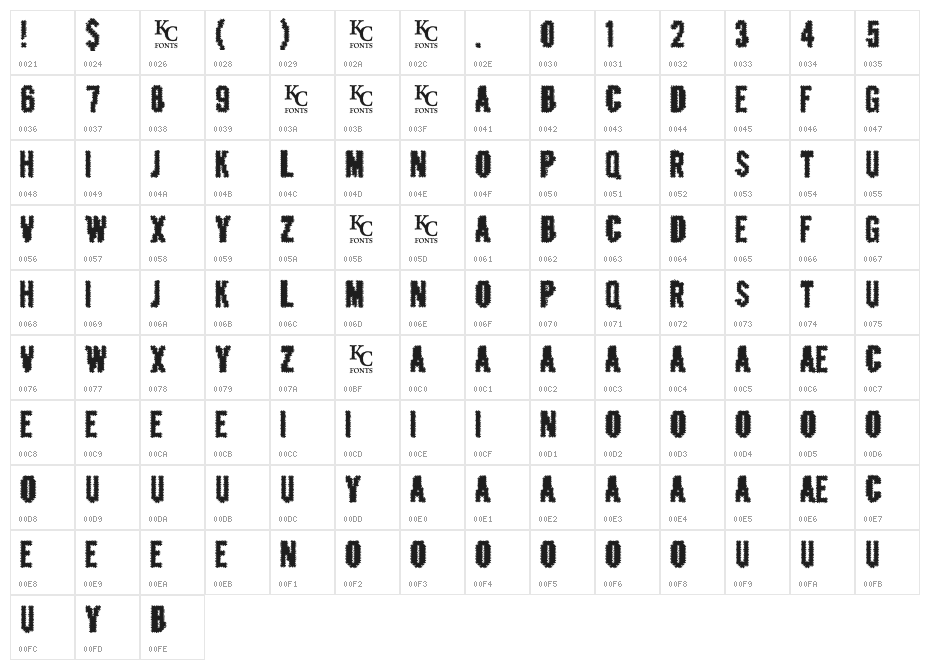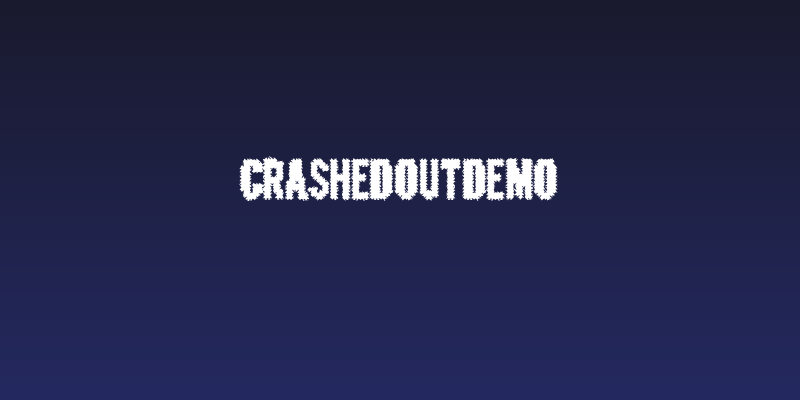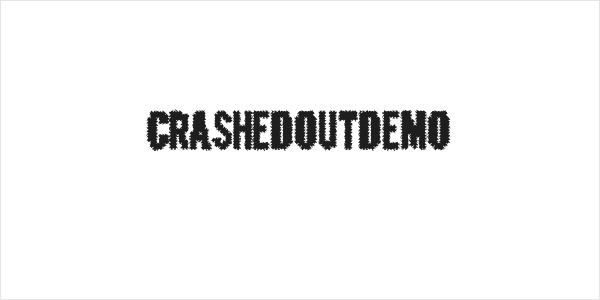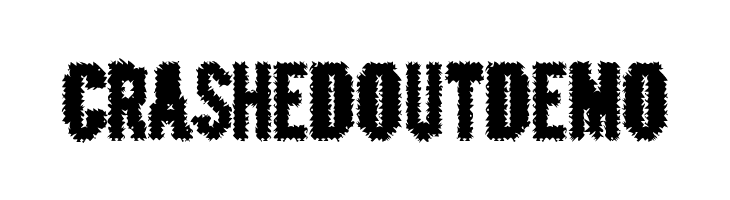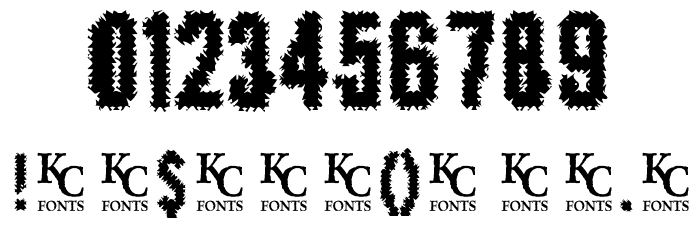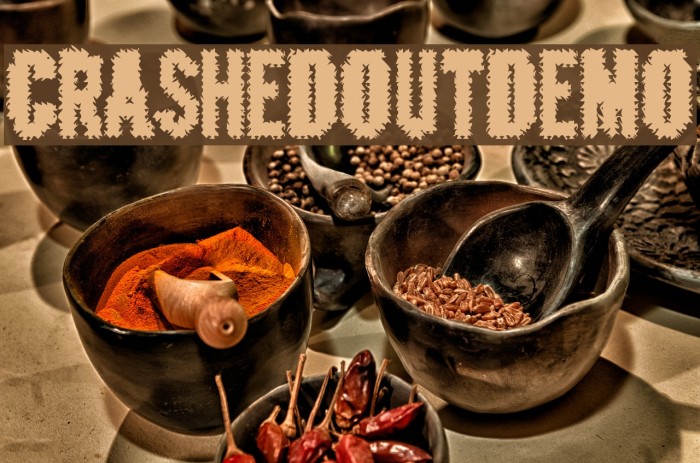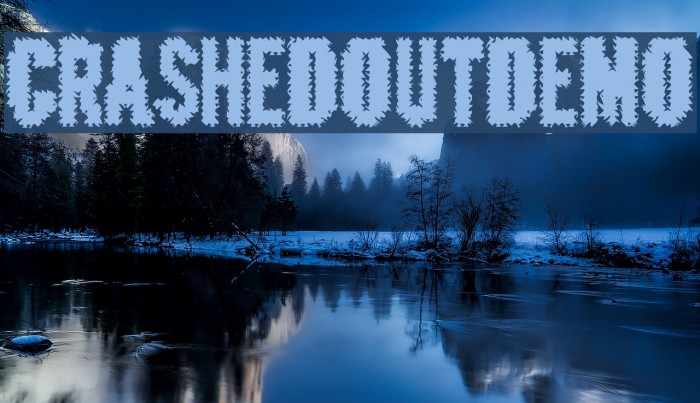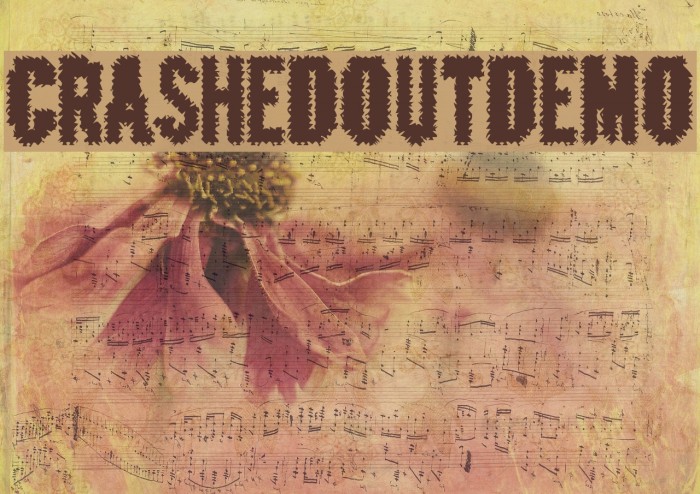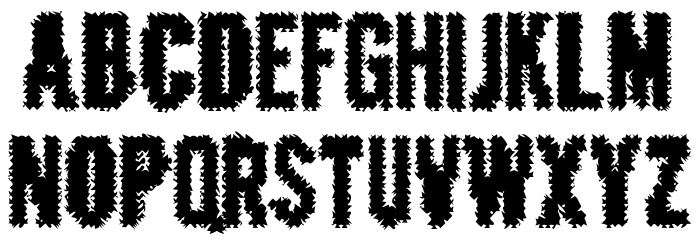
CrashedOutDemo Font
CrashedOutDemo Description
This font features a bold and jagged design, reminiscent of shattered glass or a chaotic explosion. Each character is uniquely styled with sharp, irregular edges that give it a dynamic and aggressive appearance. The uppercase and lowercase letters maintain a consistent height, creating a uniform look despite the chaotic detailing. Numbers and special characters follow the same design principles, ensuring a cohesive aesthetic throughout. This font is perfect for projects that require a dramatic and eye-catching typeface.
| Proposed Projects | Ideal for horror movie posters, edgy album covers, or any design needing a dramatic impact. |